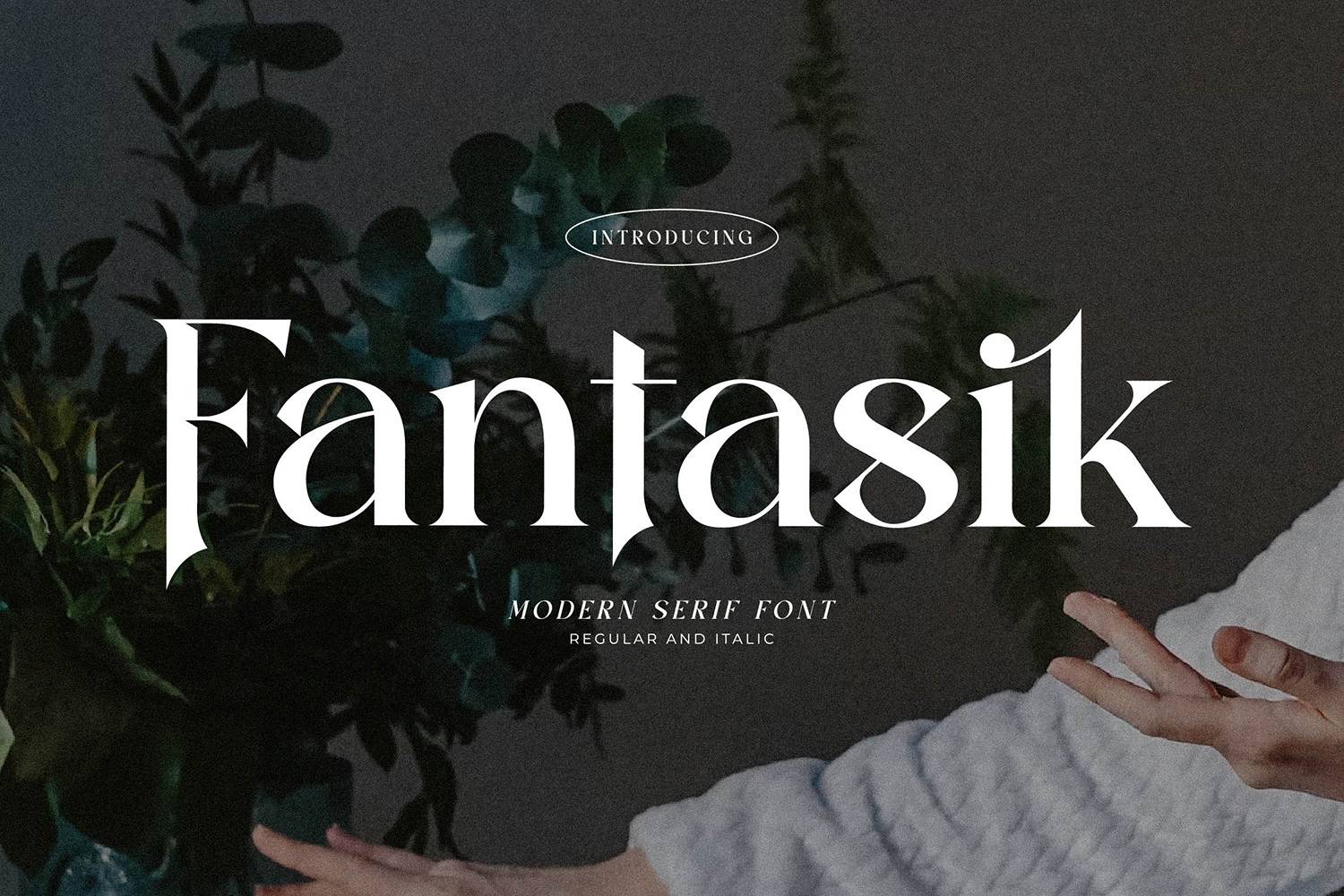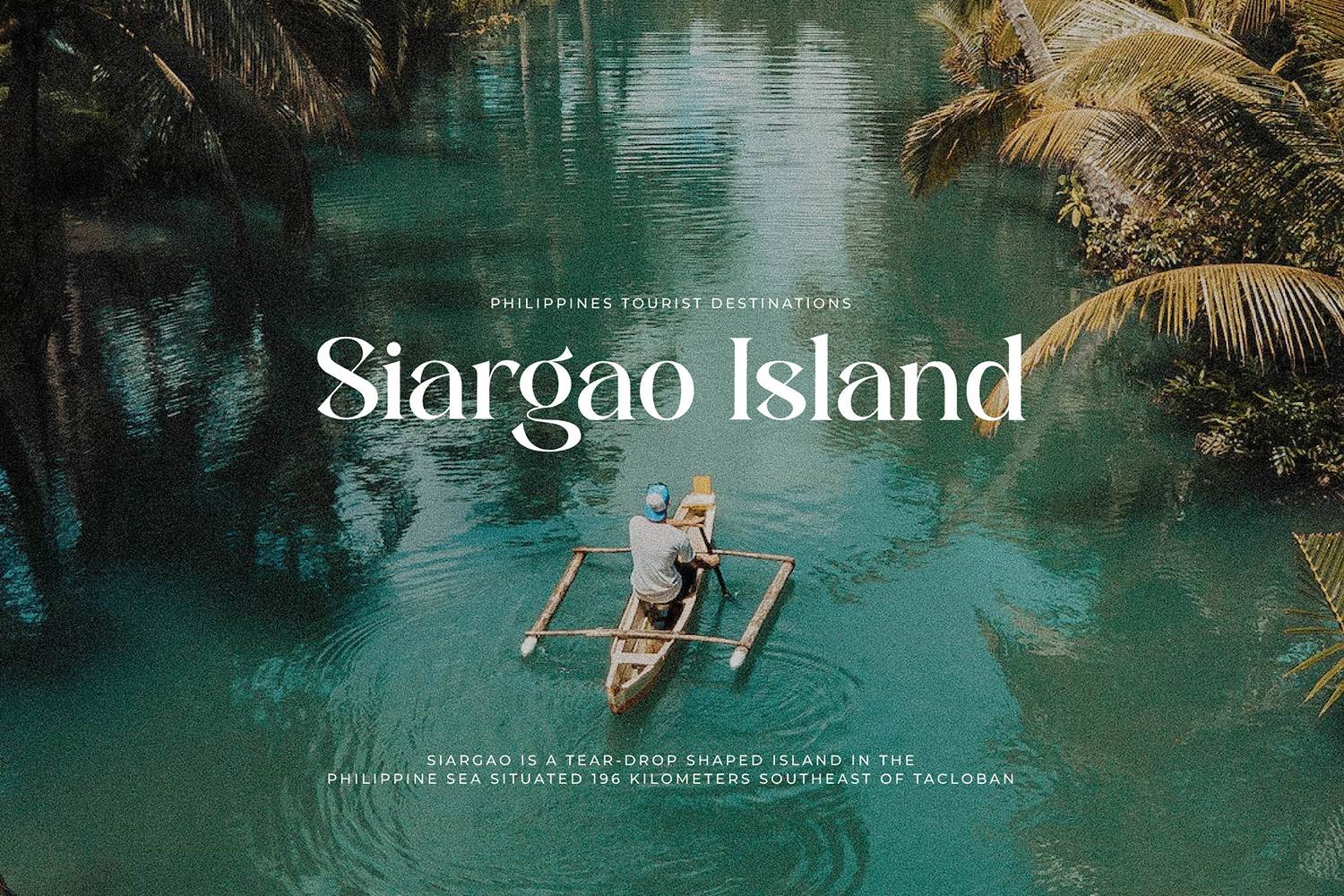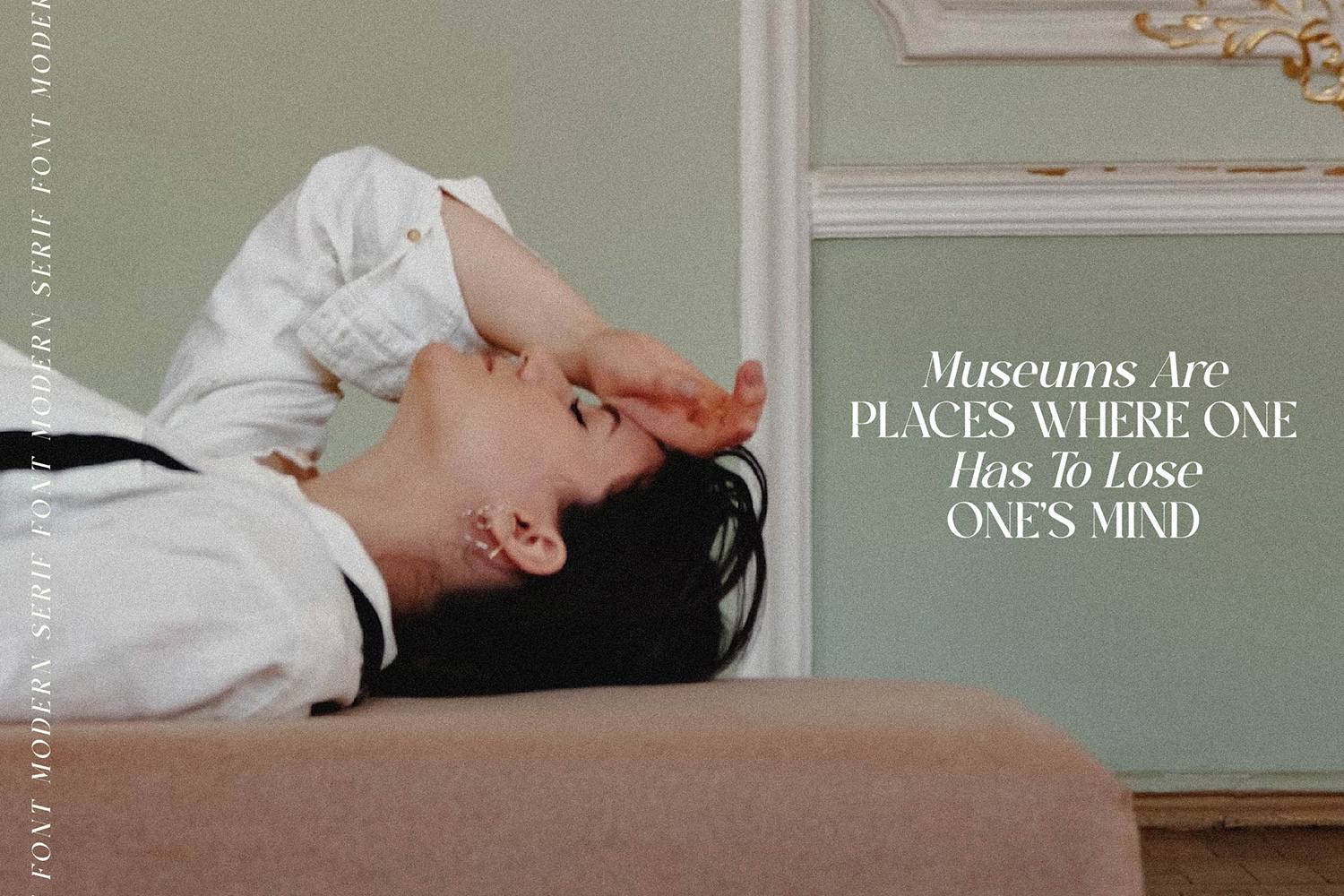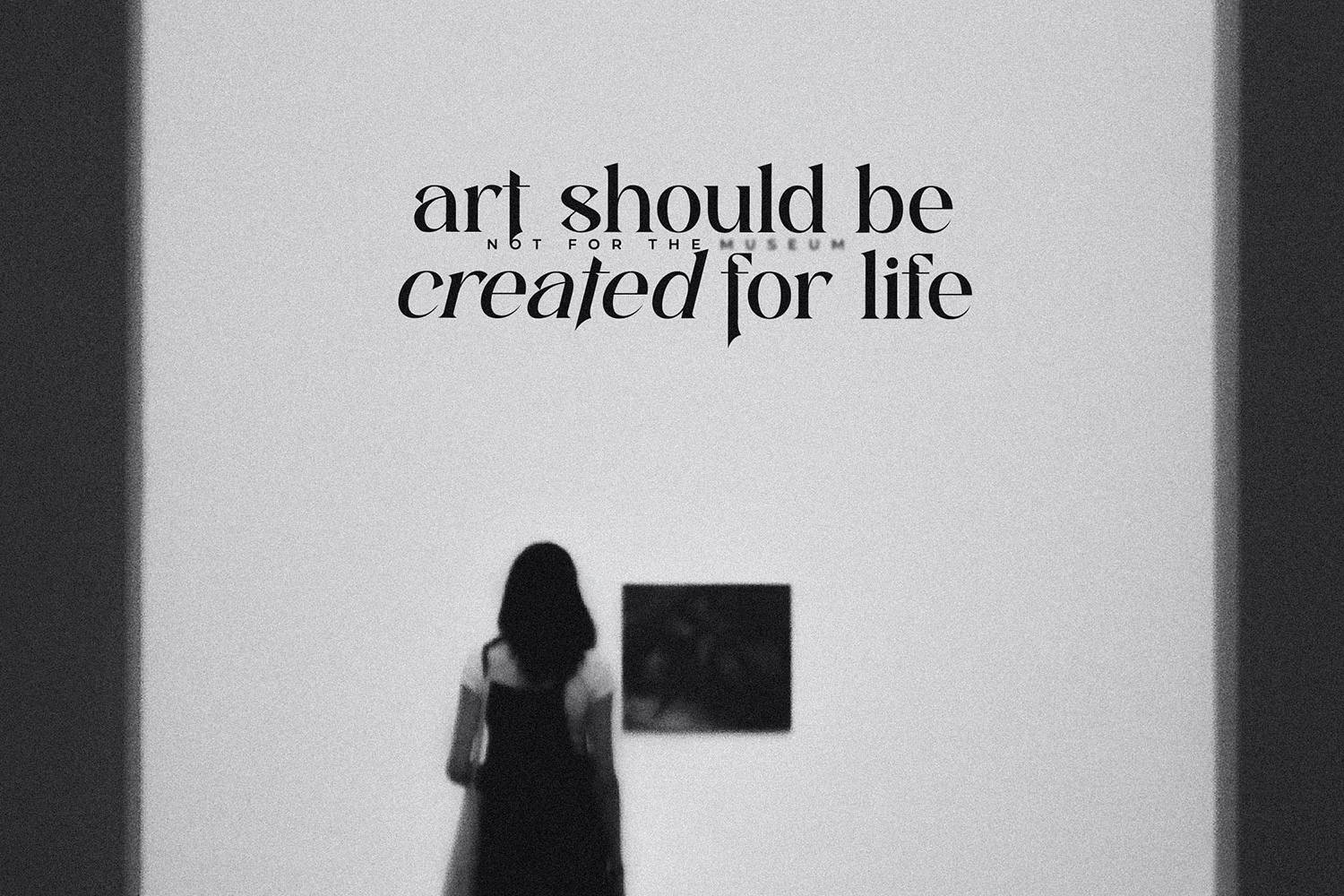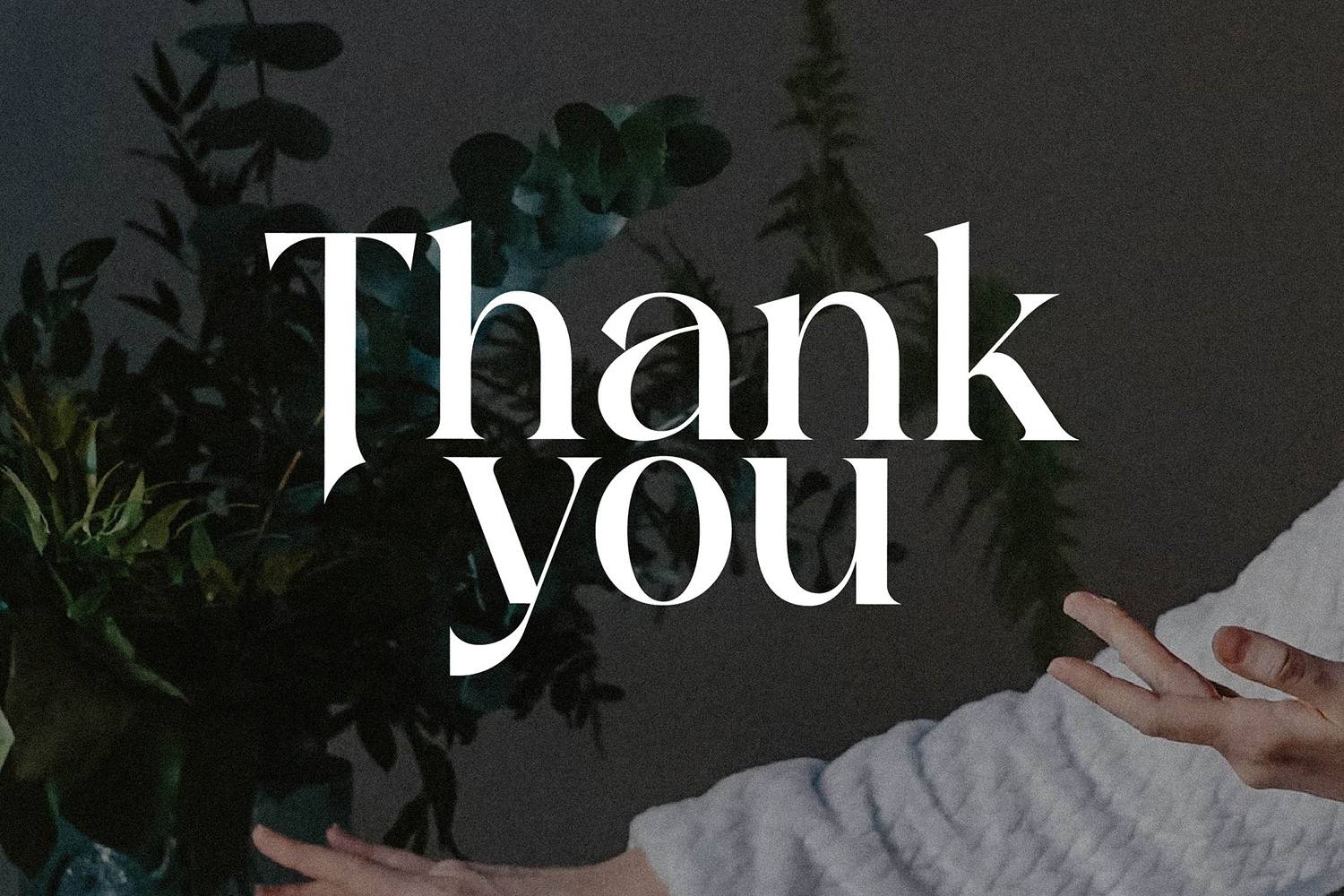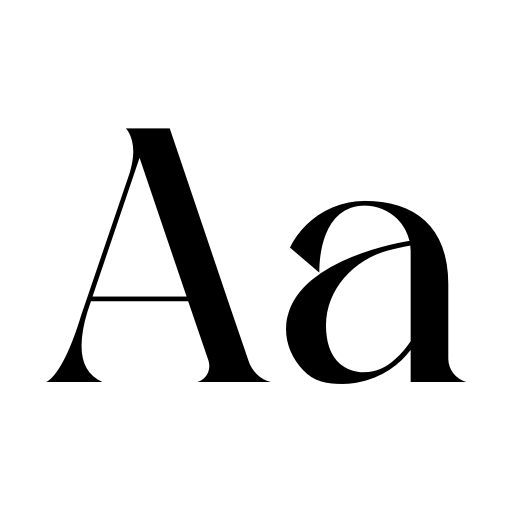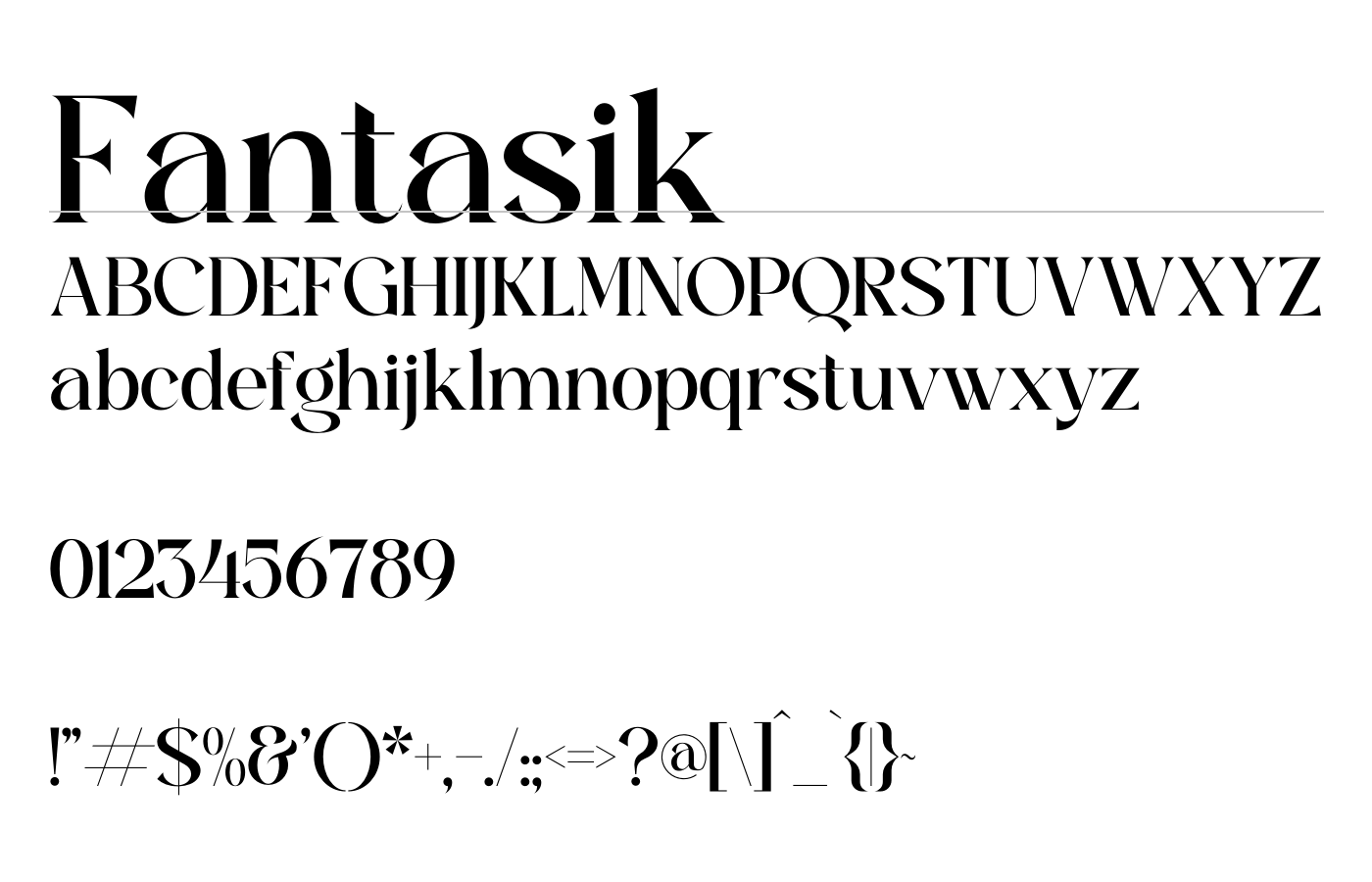
Fantasik is an elegant serif font with a refined modern touch, featuring high contrast strokes and sharp, thin serifs that lend it a sophisticated and stylish appearance. Its unique letterforms, such as the single-story 'a' and distinctive angled terminals, make it ideal for luxury branding, editorial headlines, and high-end packaging where a dramatic and polished look is desired. This font’s graceful balance between tradition and contemporary design ensures it stands out in fashion, editorial, and artistic projects seeking a bold, yet classy expression.
Fantasik Font
About Fantasik Font